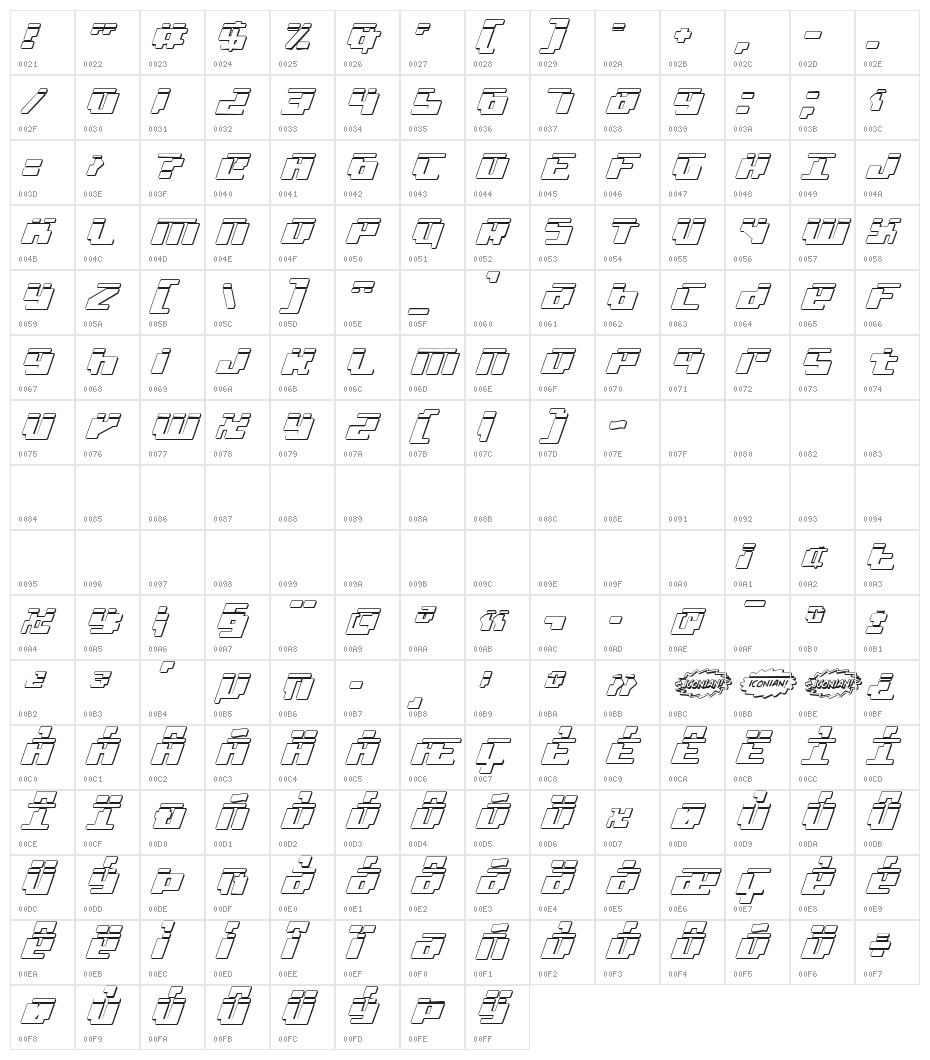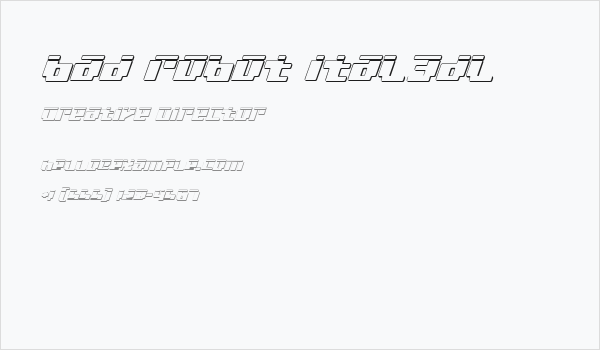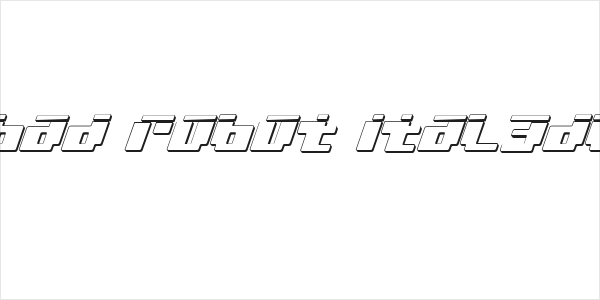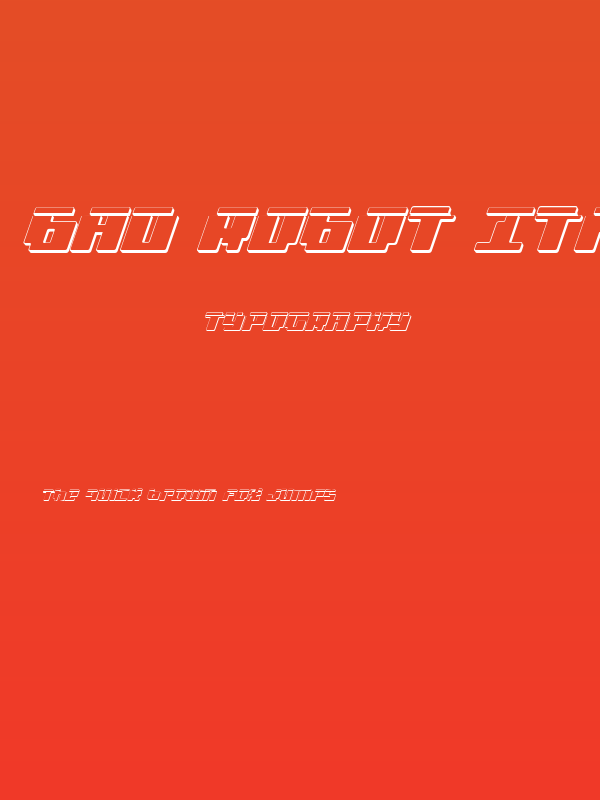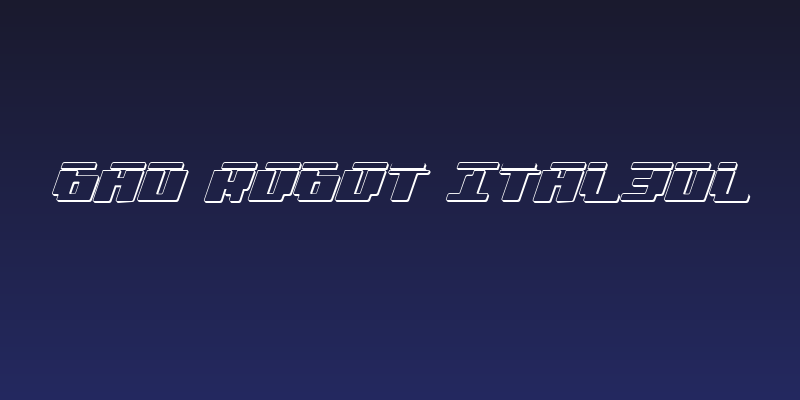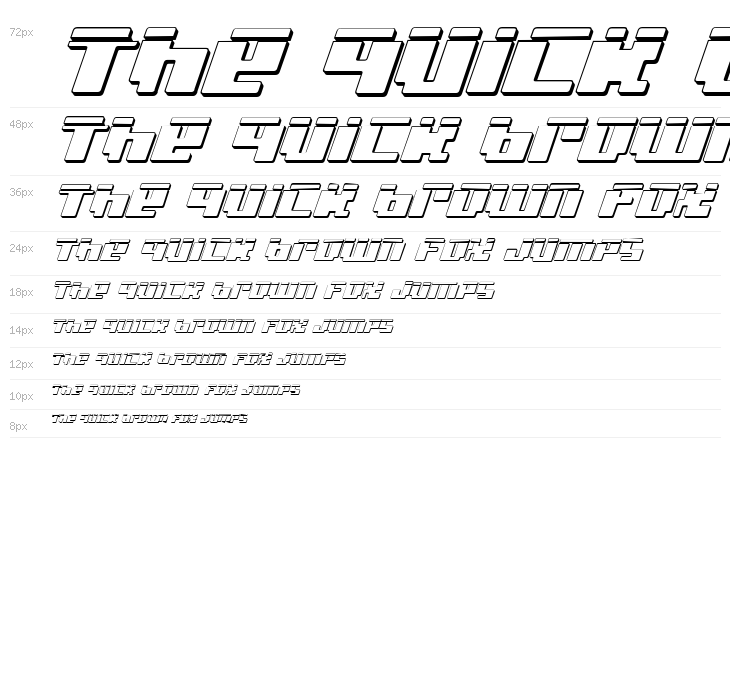
bad robot ital3dl Font
bad robot ital3dl Description
This font features a futuristic, robotic design with a three-dimensional effect. The characters are outlined, giving them a hollow appearance, and each letter has a distinct angular and geometric shape. The font maintains a consistent slant, adding a dynamic and forward-moving feel. The uppercase and lowercase letters share a similar structure, enhancing uniformity. Numbers and special characters are designed to match the overall aesthetic, making this font suitable for tech-themed projects. Its unique style is eye-catching and modern, perfect for creating a bold statement in any design.
| Overall Style | Futuristic, Modern |
| Proposed Projects | Ideal for tech-themed designs, video game graphics, sci-fi movie posters, and futuristic branding. |